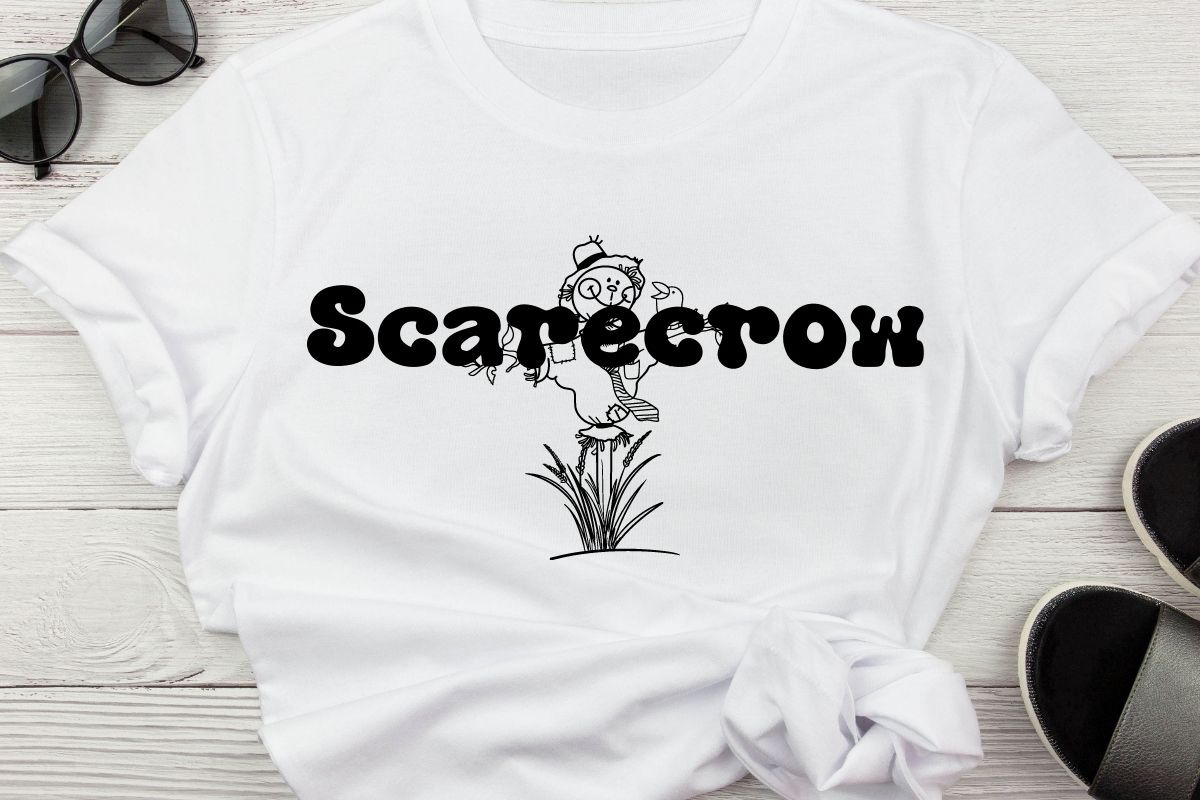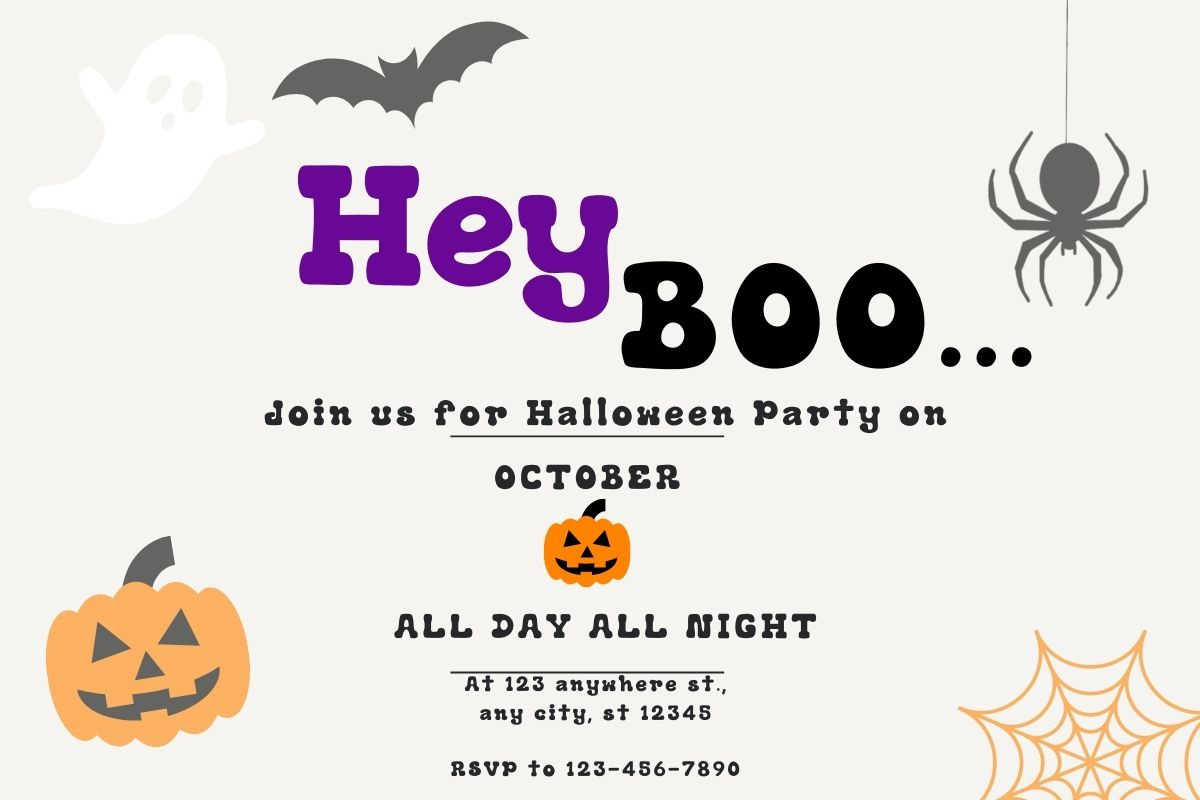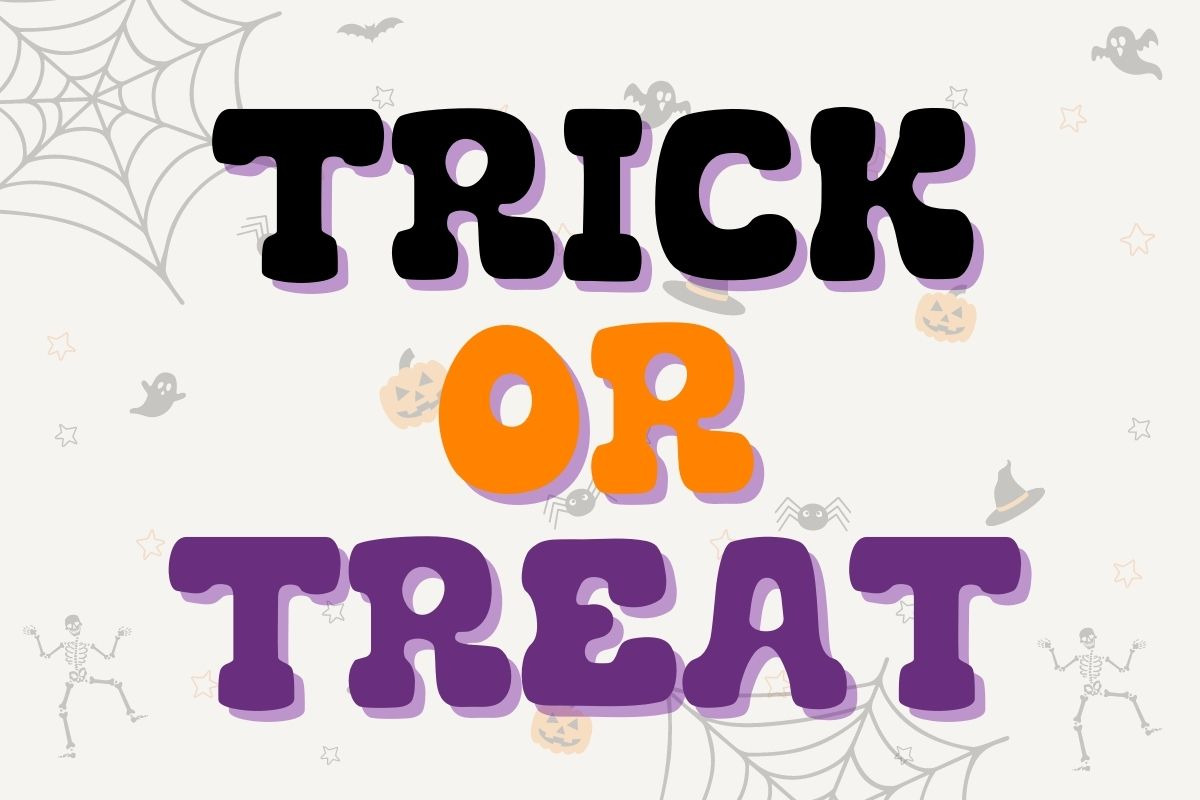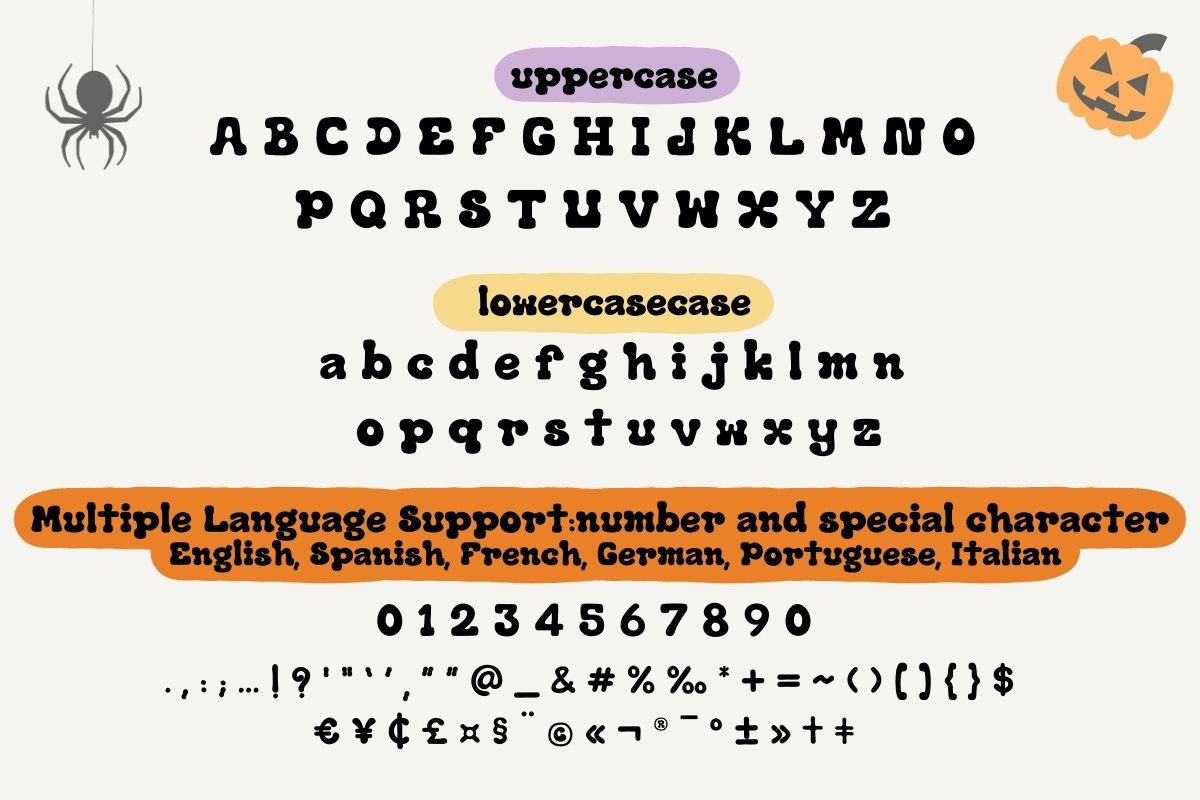
Halloween Party - Display Groovy
Hey, design darlings! meet “Halloween Party Font” the ultimate blend of Display Fonts, Groovy Fonts. With its charm and captivating style, this font reigns supreme, adding a touch of vibrant personality to every project.
Picture your designs infused with the playful spirit of “Halloween Party Font” So, if you’re ready to rock that retro vibe with a modern twist, let “Halloween Party Font” be your creative partner in crime!